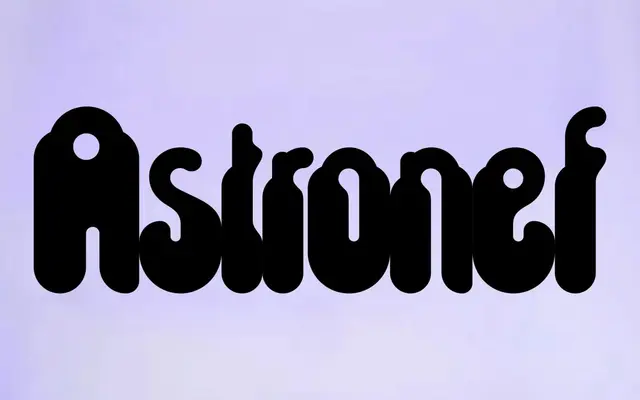
Astronef
A digitised revival of Jean Alessandrini's 1976 cut-paper typeface, rooted in the science-fiction-inflected 'machinales computrices' movement of the pre-1980s era.
Originally drawn in cut paper by Jean Alessandrini in 1976, the typeface sits within a specifically French tradition of futuristic lettering inspired by science fiction and post-war visions of new worlds. Developed digitally by Diorama Type Partners between 2020 and 2021 with Alessandrini's direct oversight, it was published in 2023 as an authorised updated version rather than a straight revival. The Latin Extended character set covers a wide range of languages across a single style, with stylistic set alternates for select letterforms.
Astronef belongs to the 'machinales computrices' tradition of science-fiction-inspired geometric lettering from the 1970s, constructed in cut paper with hard angles and futuristic forms placing it firmly in display territory.